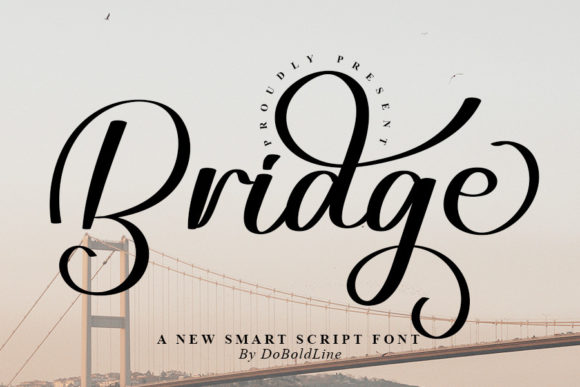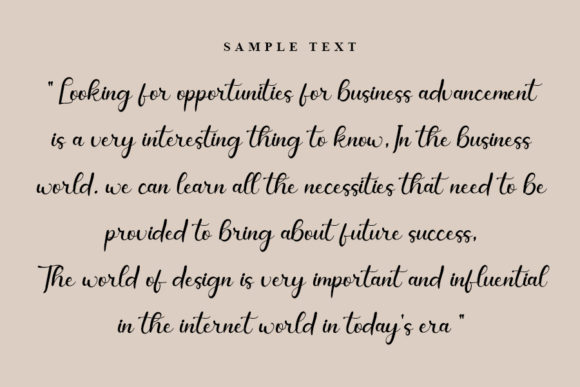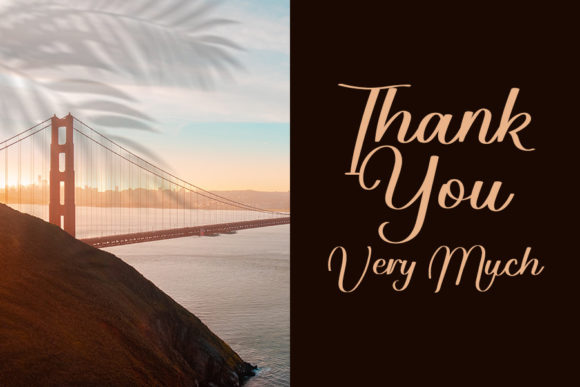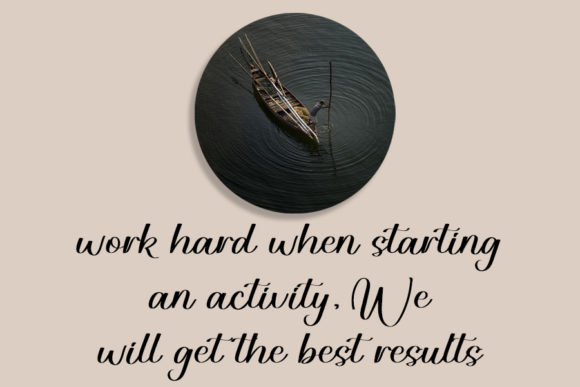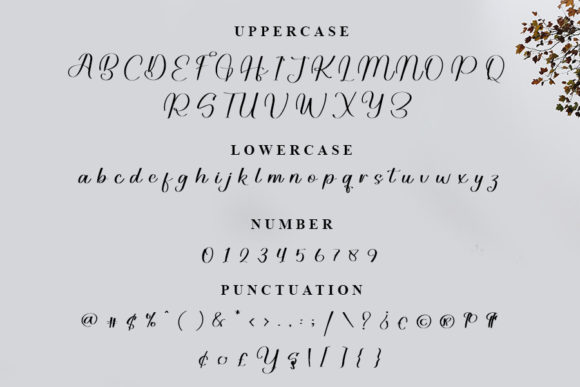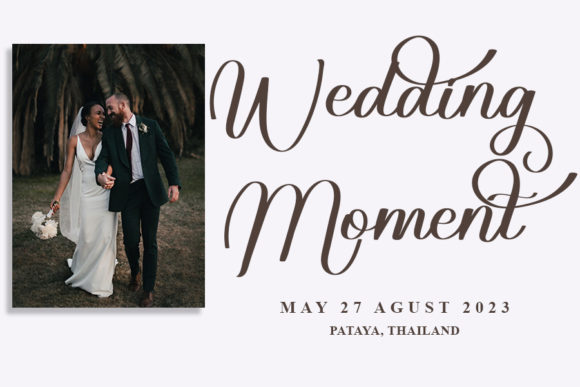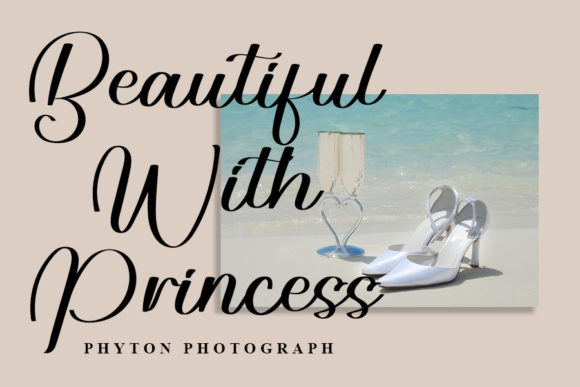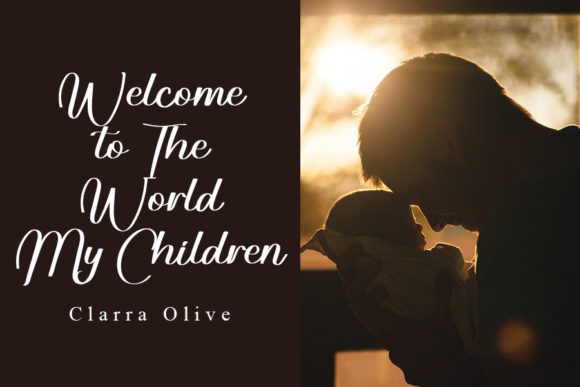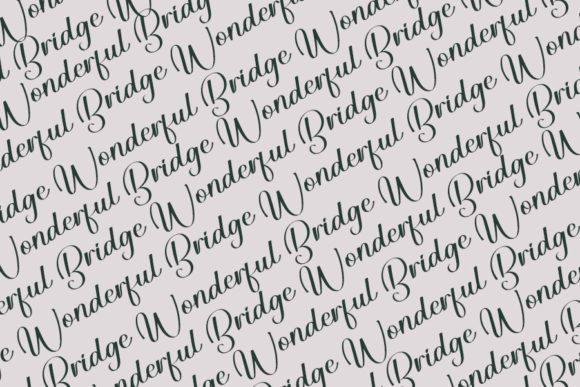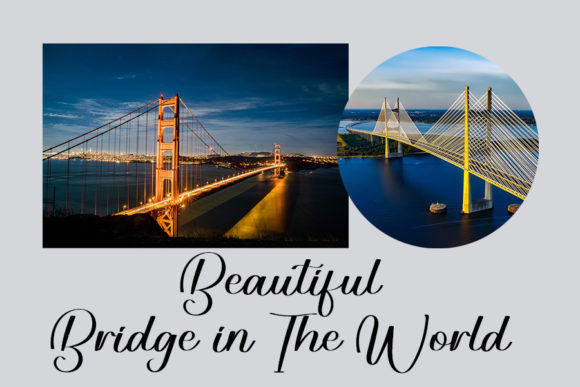
Bridge Font
About Bridge Font
Bridge, a stylish handwritten font, brings a contemporary flair and impeccable form to your creative projects, drawing inspiration from the enduring elegance of timeless classic calligraphy. Meticulously crafted, this font strikes a harmonious balance, featuring a blend of modernity and traditional charm to elevate the visual appeal of your designs.
Crafted with precision and a keen eye for detail, Bridge presents a unique handwritten script that transcends mere typeface, injecting a personalized touch into your projects. Ideal for conveying warmth, authenticity, and individuality, the font’s handwritten nature adds a distinct and human element to your text.
What sets Bridge apart is its versatility. It seamlessly adapts to diverse design contexts, making it a valuable asset for various projects such as invitations, branding materials, or any creative piece where a sophisticated touch is needed. This font introduces a dynamic flair that enhances the overall visual impact and ensures a lasting impression.
Bridge takes advantage of PUA encoding, allowing easy access to a plethora of amazing glyphs and ligatures. This feature not only enhances the font’s flexibility but also provides you with creative freedom, making it effortless to incorporate unique characters and design elements into your work.
The font’s varied strokes and meticulously designed letterforms contribute to its overall balance, ensuring readability and introducing a rhythmic flow to the text. Bridge captures attention and creates a memorable visual experience for your audience.
More than just a typeface, Bridge is a design tool crafted to empower your creative expression with ease. Its contemporary aesthetic, coupled with timeless calligraphic influences, positions it as a versatile asset for projects that demand a seamless fusion of tradition and modern sensibilities.
Step into the world of Bridge, where each stroke tells a story, and every curve resonates with style. Whether you’re a designer seeking a handwritten font or embarking on a personal project, Bridge is ready to complement your vision. Elevate your designs, infuse them with a touch of timeless beauty, and make a lasting impression with Bridge, the stylish handwritten font that effortlessly enhances the beauty of your creative endeavors.